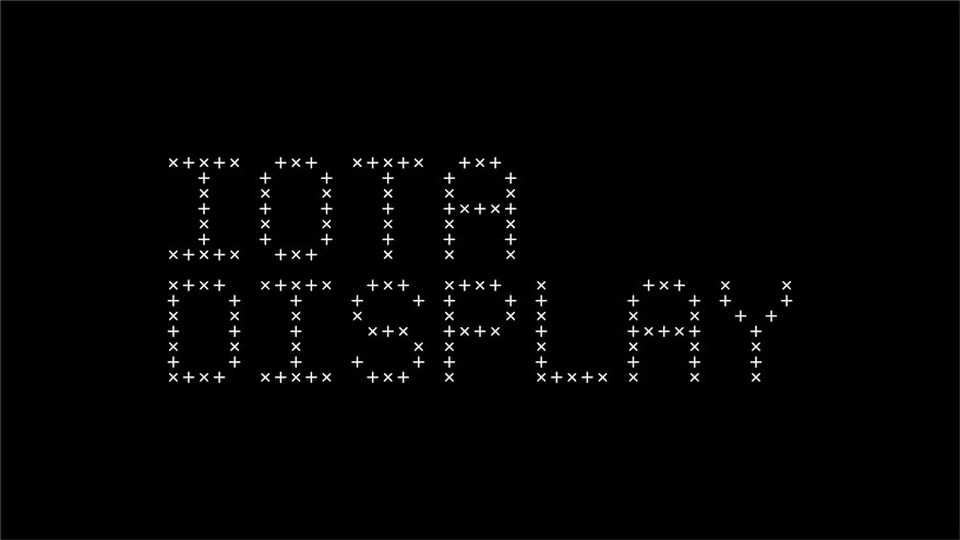
Download Iota Display font, a modular typeface that is constructed using a series of plus and multiplication signs, which is intended to be a way of visually representing the potential for positive connections between people within a group or network.